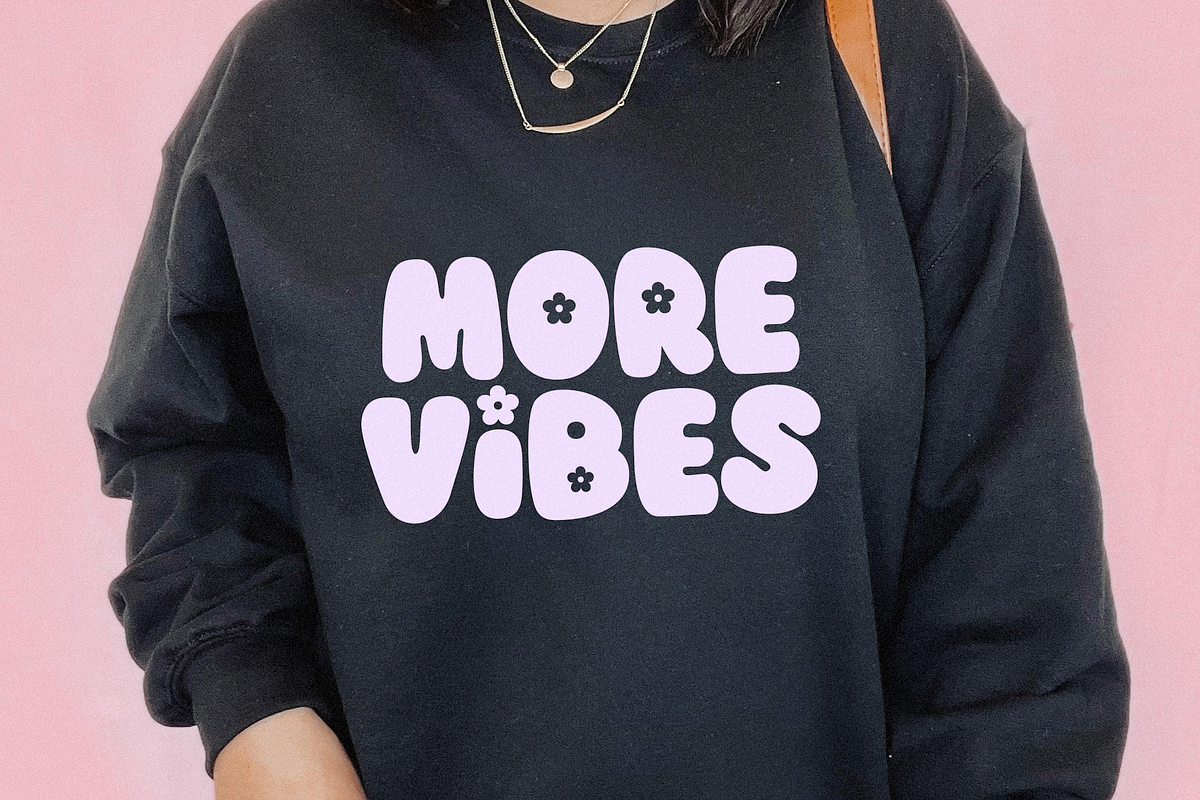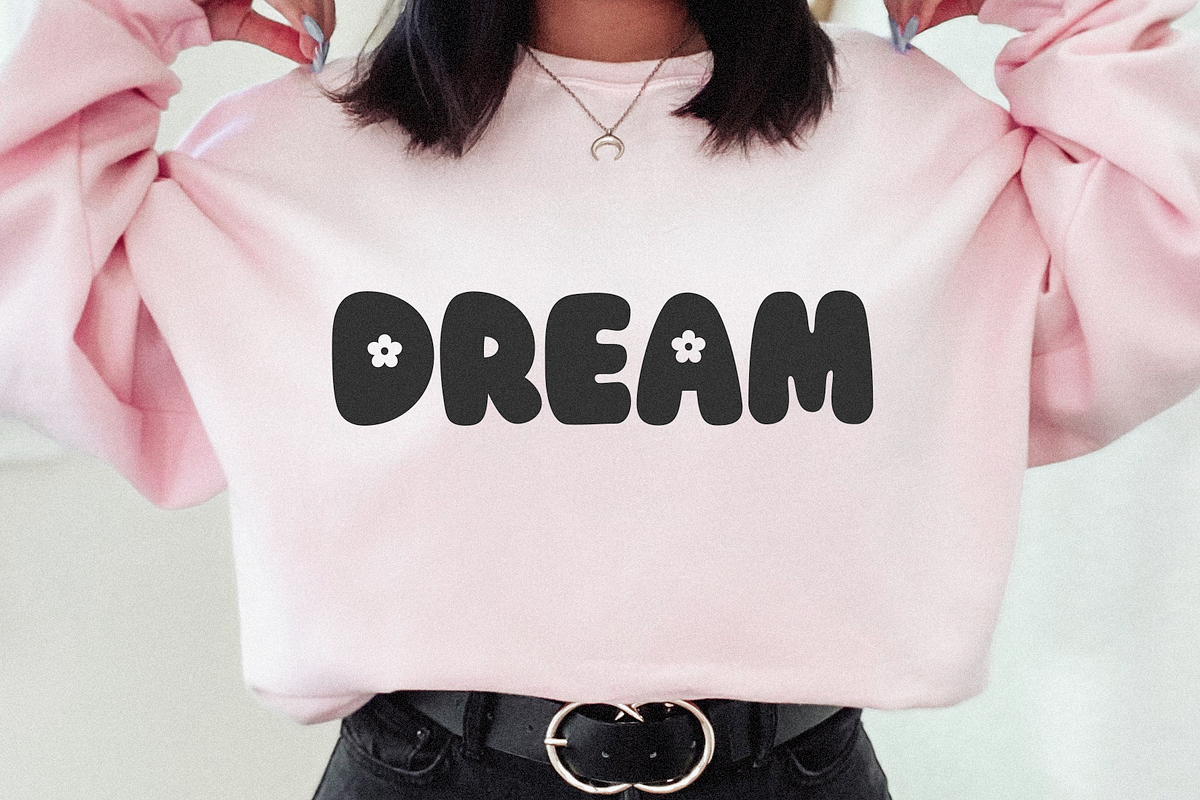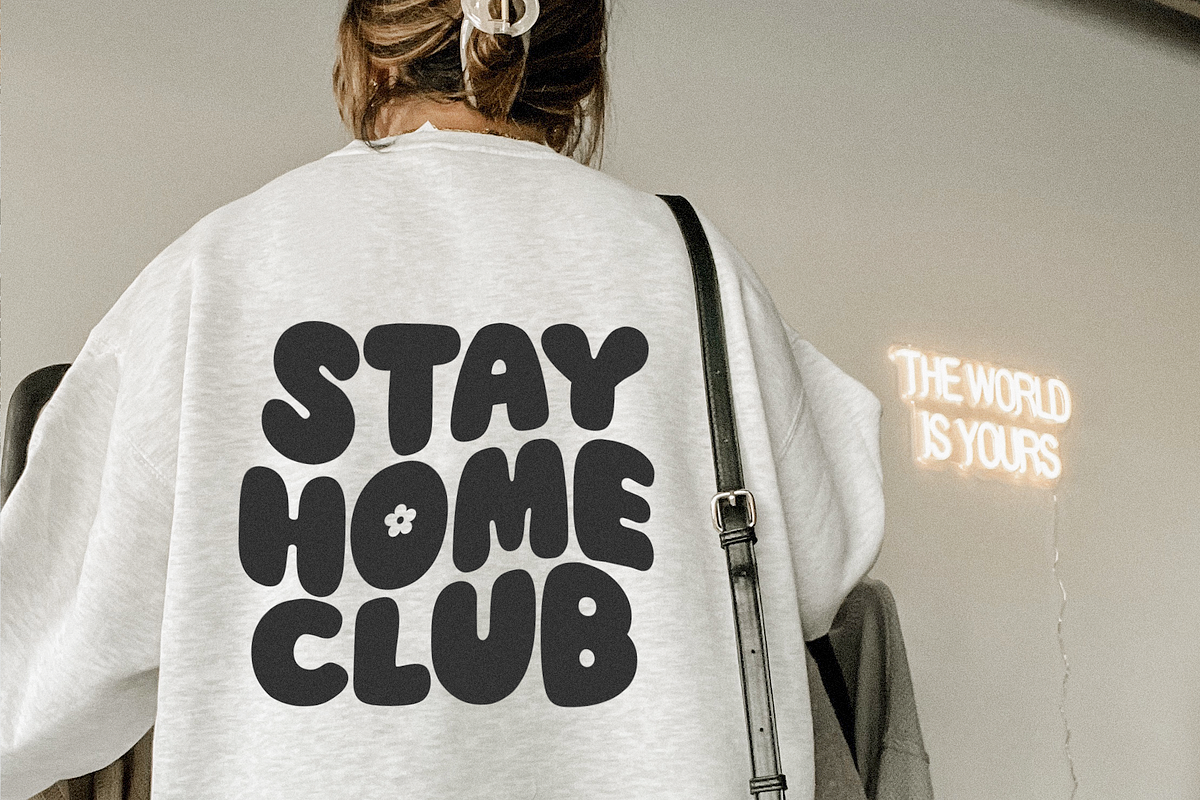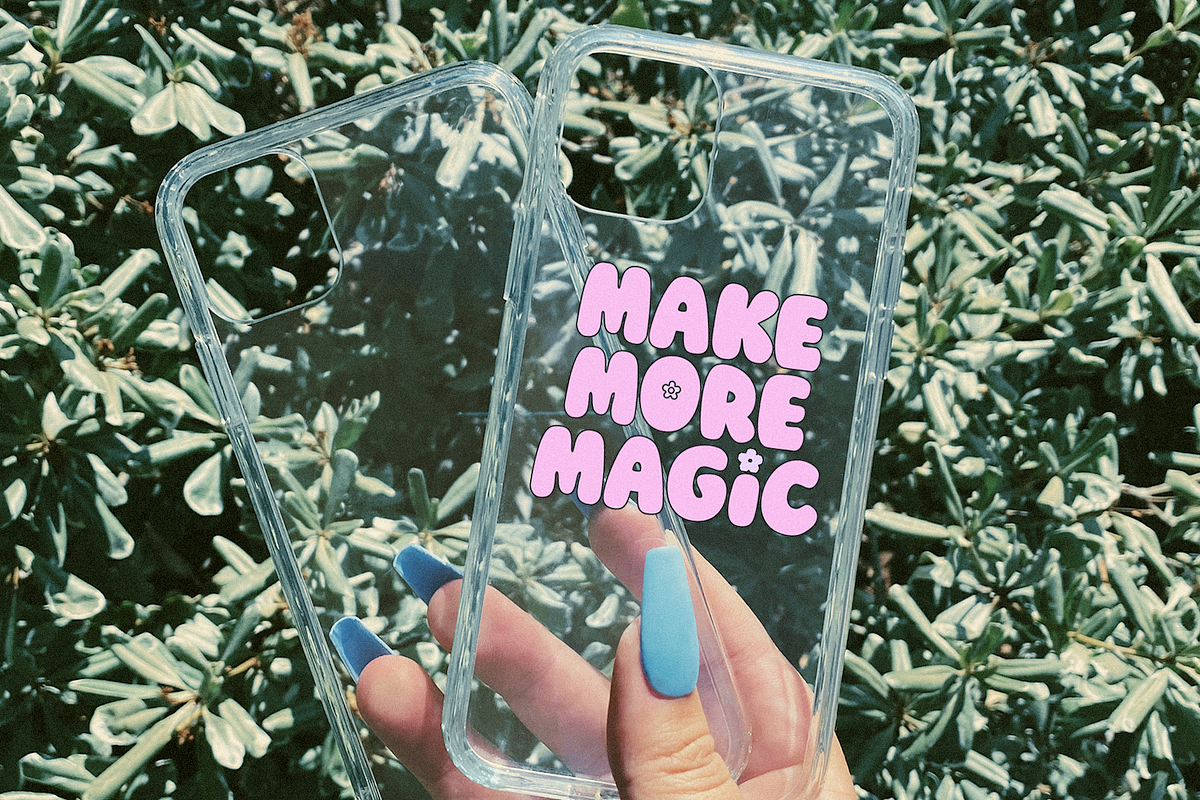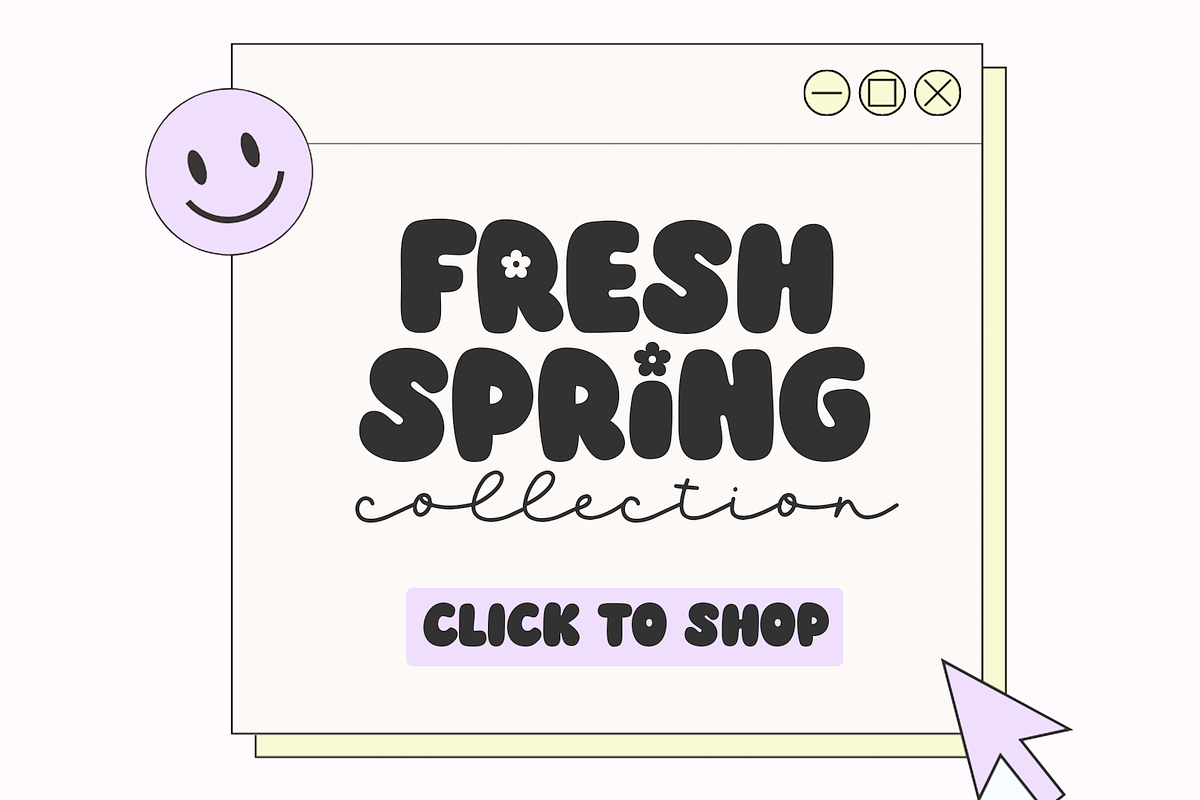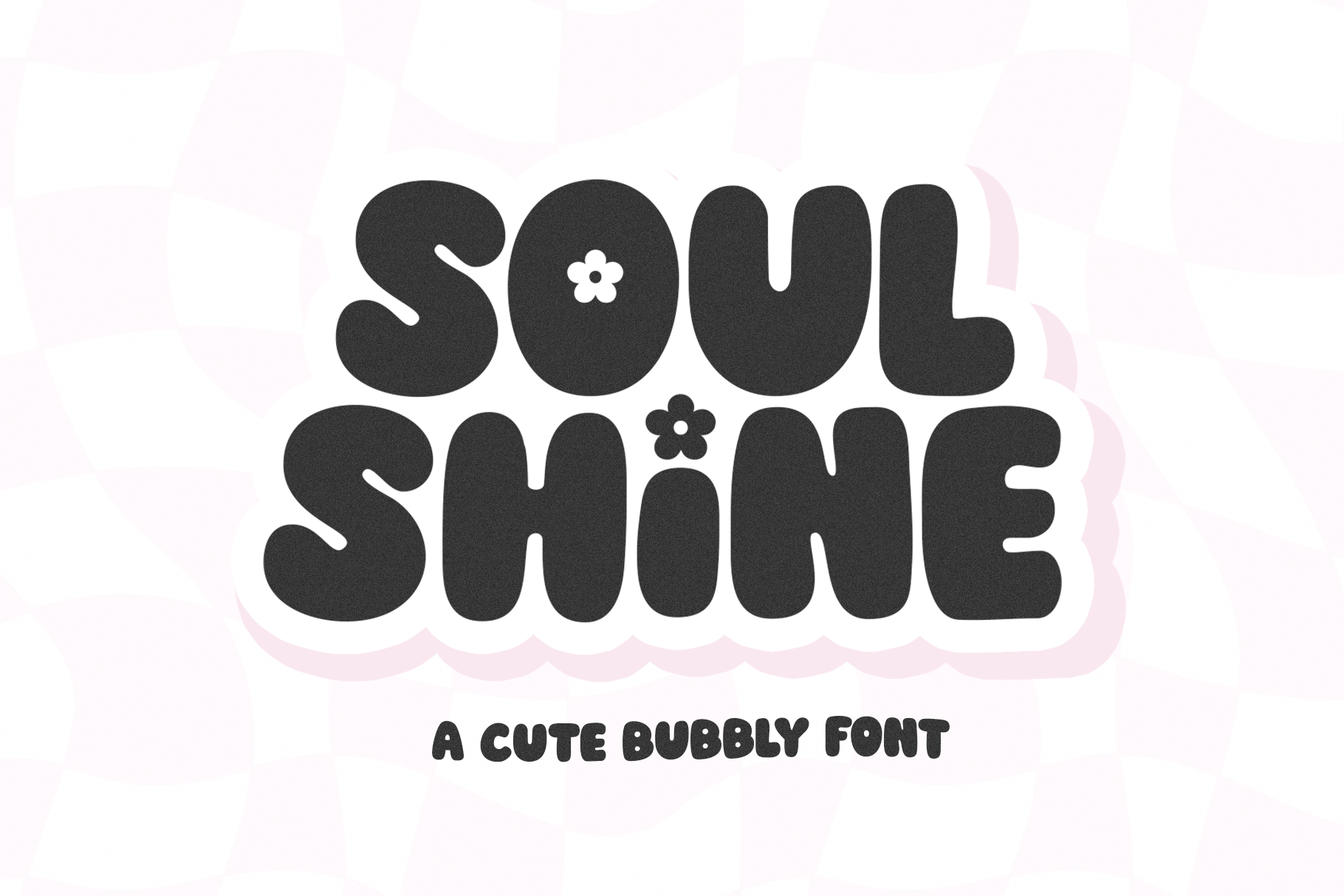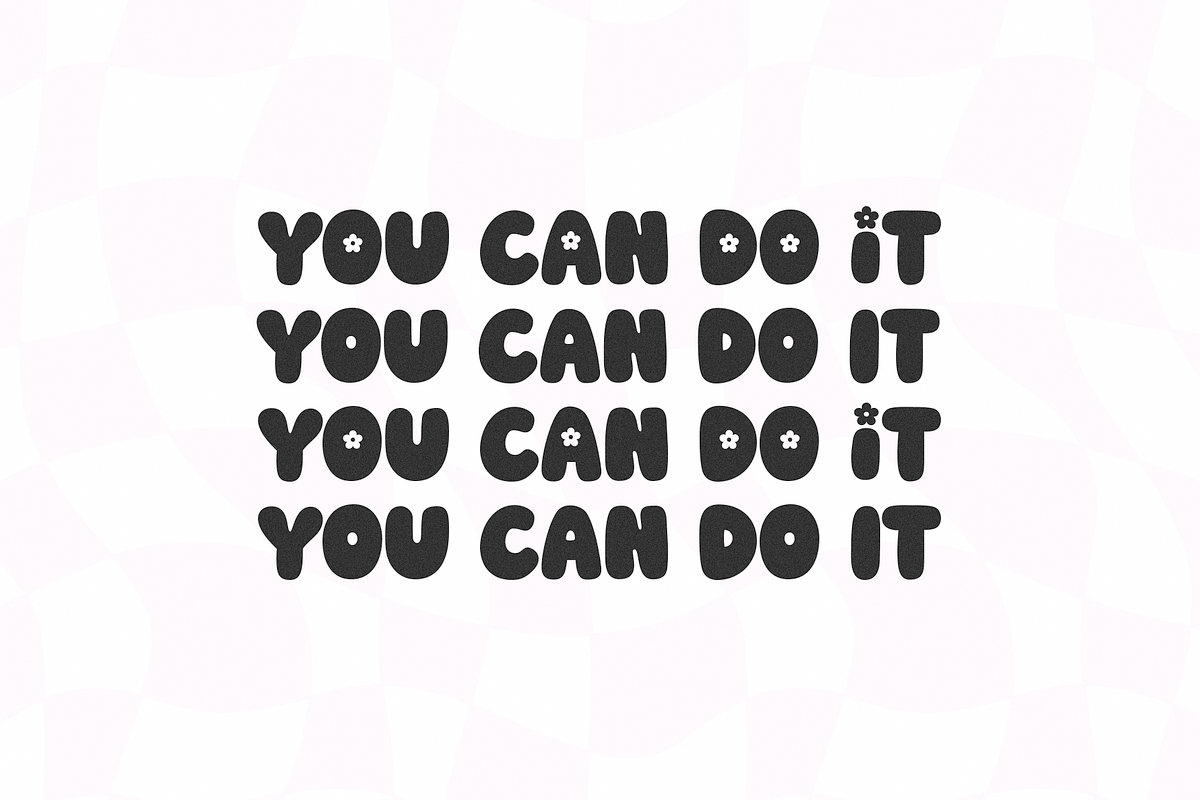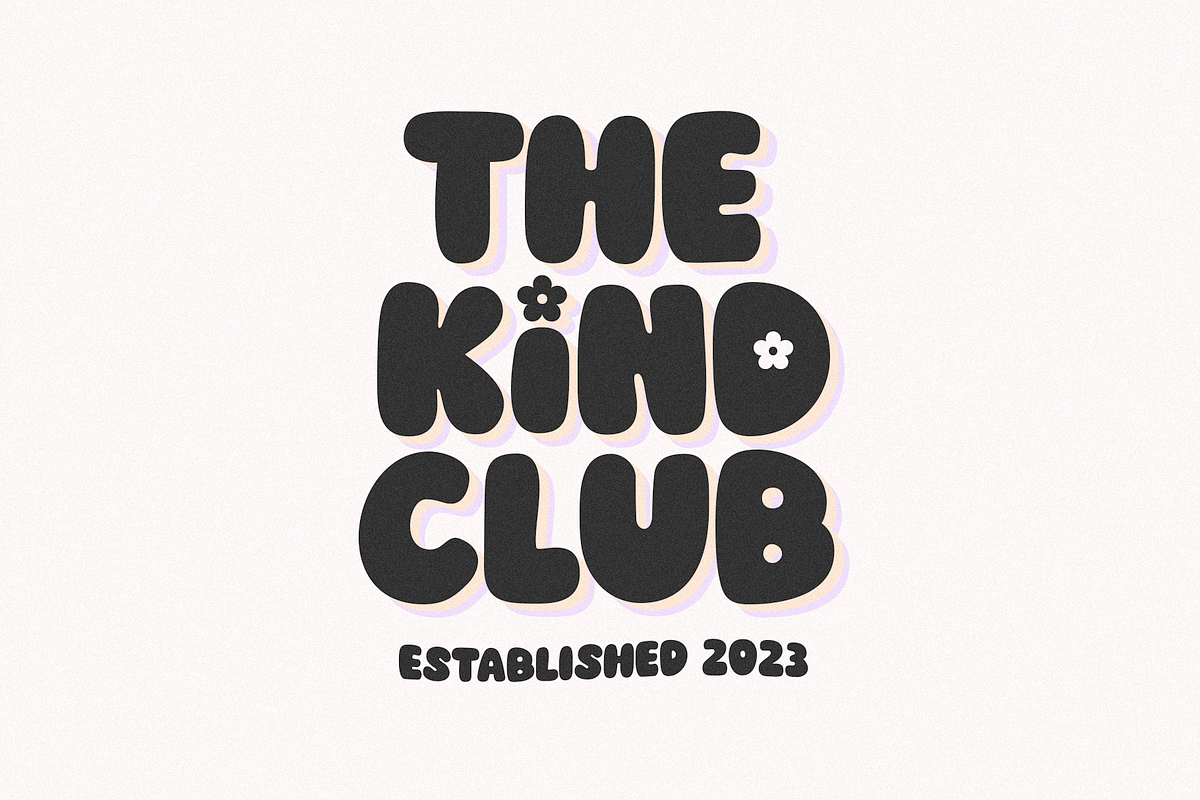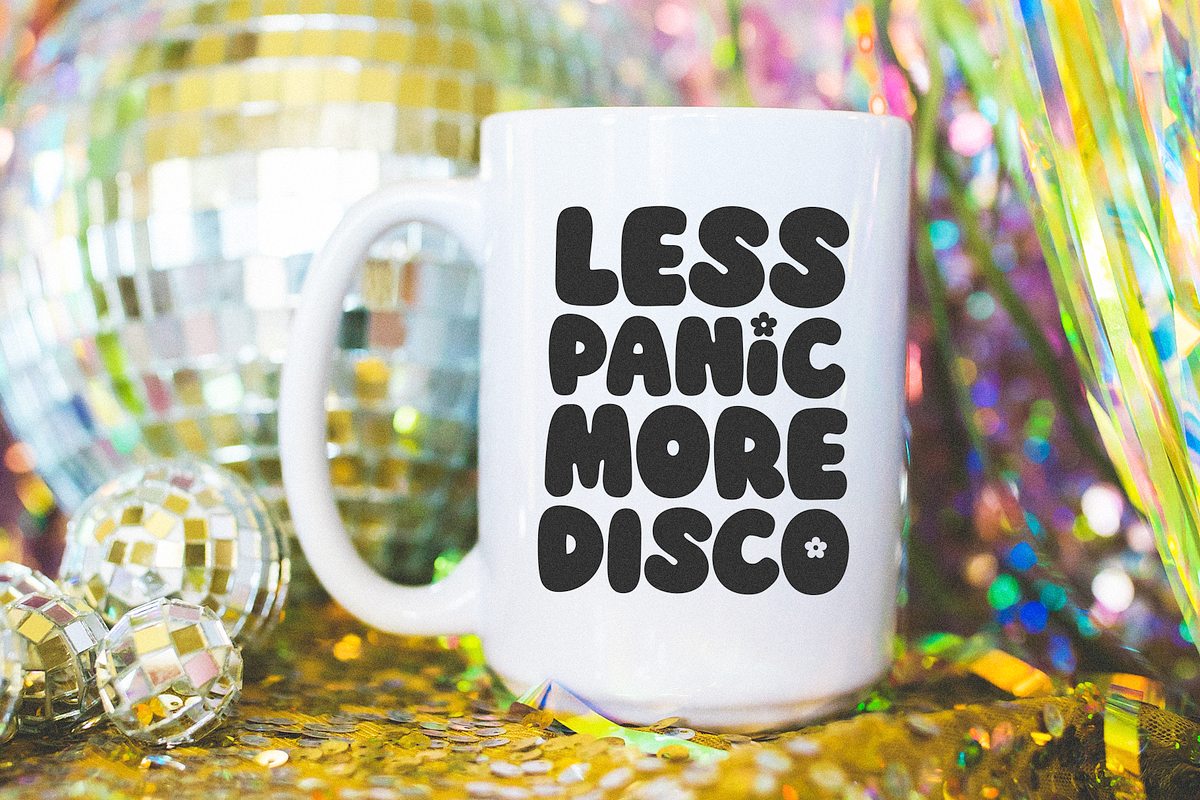
Soul Shine | Bubbly Retro Font
Soul Shine is cute and bubbly font.
- Type with capital letters for a basic alphabet set
- Type with lowercase letters for flower embellishments